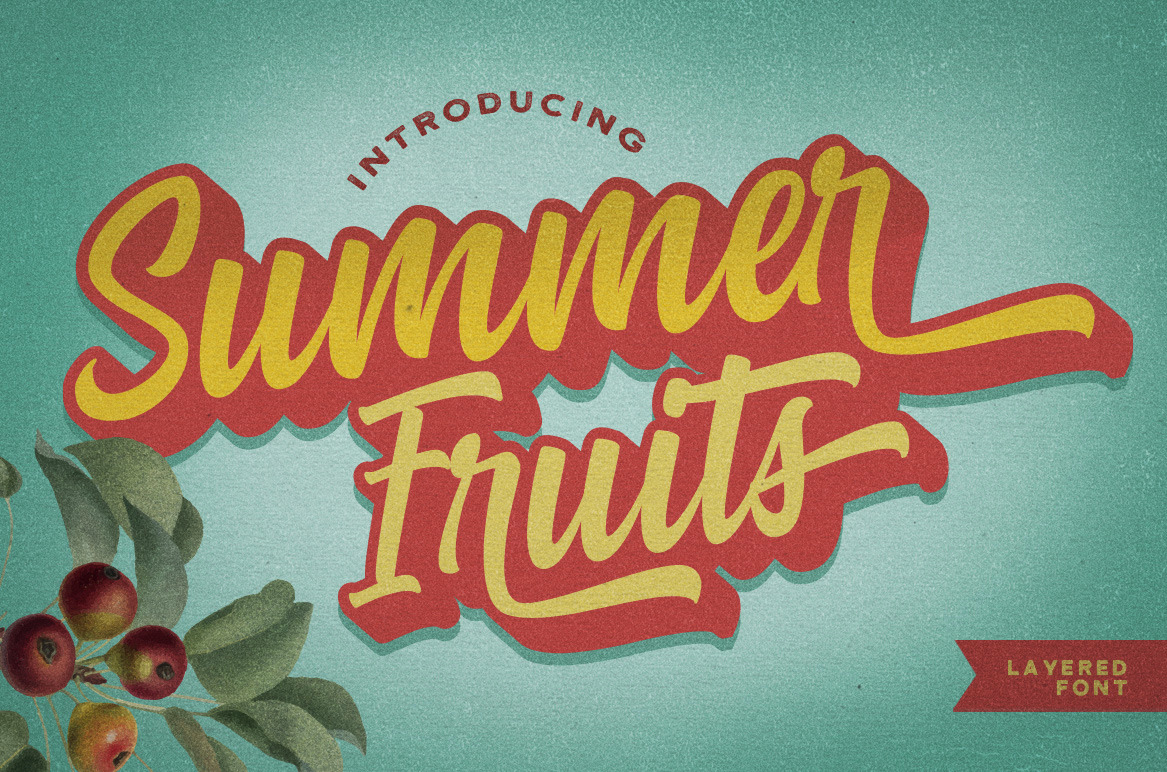
Hi there! meet our new font Summer Fruits. Wanna make a retro style design? No Problem, this font can do it fast!
Summer Fruit is a bold script who comes with extrude effect. Inspired by retro typography designs style in 70's.
You won't need extra effort for create an extrude effect for this font. It is because we include the extrude with this font. This mean you can saves your time by only adding the extrude font on the back layer.
The Features includes:
- Stylistic Alternates,
- Swashes,
- Ligatures,
- Contextual and Stylistic Set.